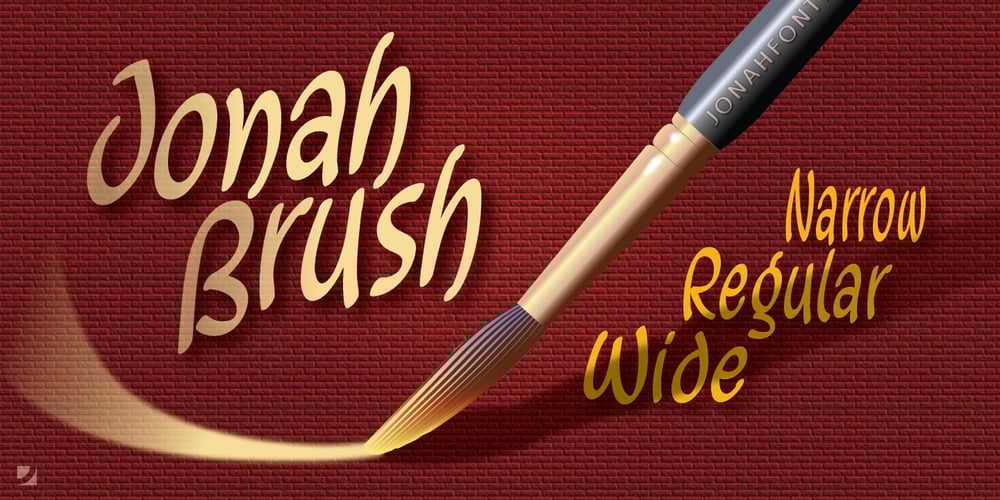
Jonah Brush Font Family was designed by John Nahmias and published by Jonahfonts. Jonah Brush contains 3 styles and family package options. As once a sign-painter in my younger years I loved the quick brush strokes used to turn out quick ‘Sale’ posters.I tried to relive in this font.